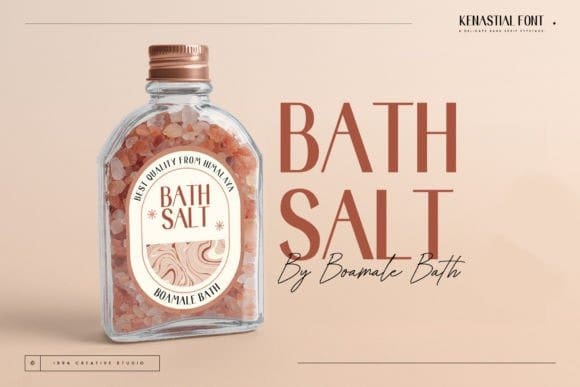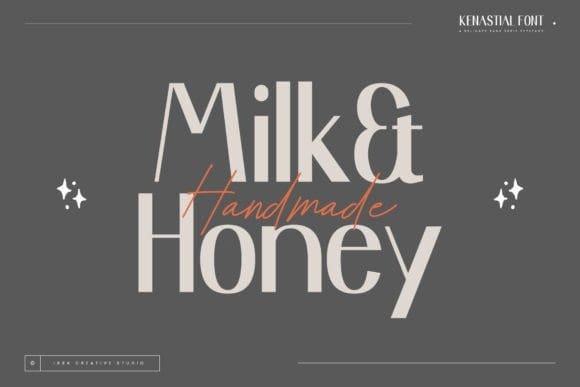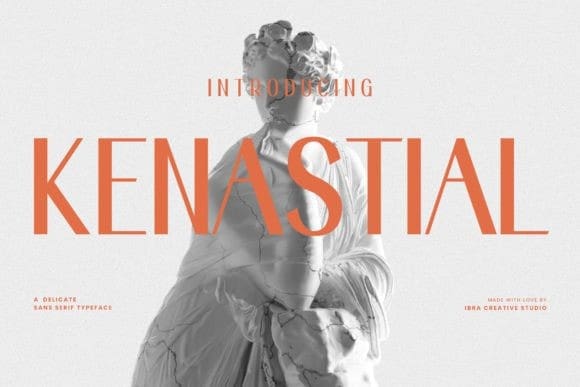
Kenastial Font
Kenastial Font, a delicate sans-serif typeface, epitomizes elegant simplicity with its refined and harmonious design. The font boasts clean lines and well-balanced proportions, creating a graceful and modern aesthetic that is both timeless and versatile. Kenastial’s subtly tapered strokes and gently rounded letterforms contribute to its delicate charm, making it an ideal choice for a wide range of design applications.